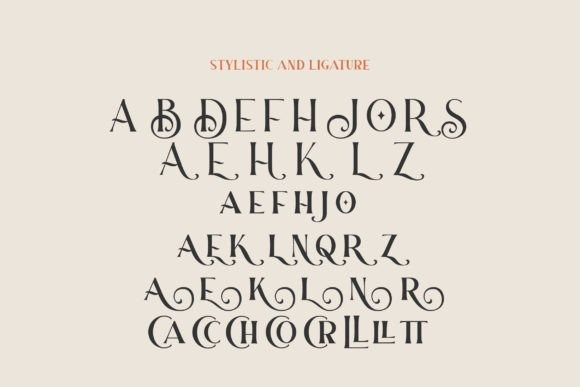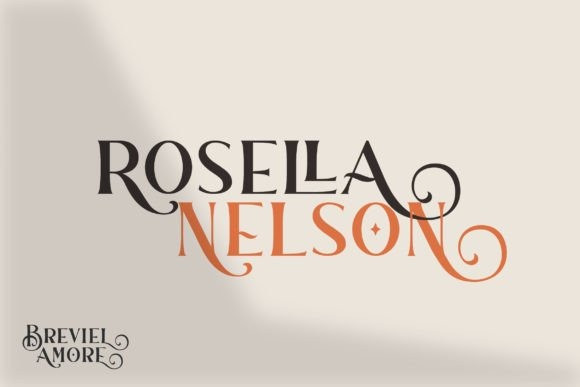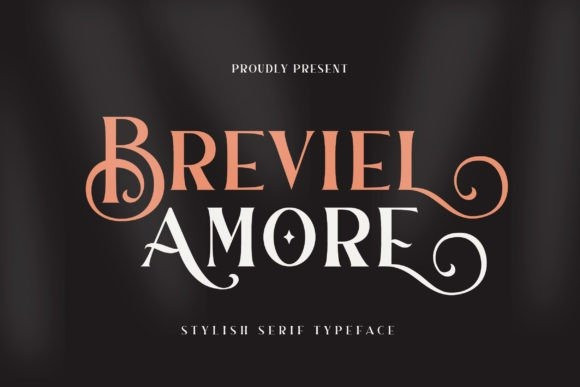
Breviel Amore Font
Introducing the stunning and elegant Breviel Amore serif font! Its timeless design features slender, tapered serifs and precise, balanced letterforms that evoke a sense of sophistication and refinement. Perfect for high-end branding, editorial layouts, and other refined designs, Breviel Amore is the epitome of understated elegance.